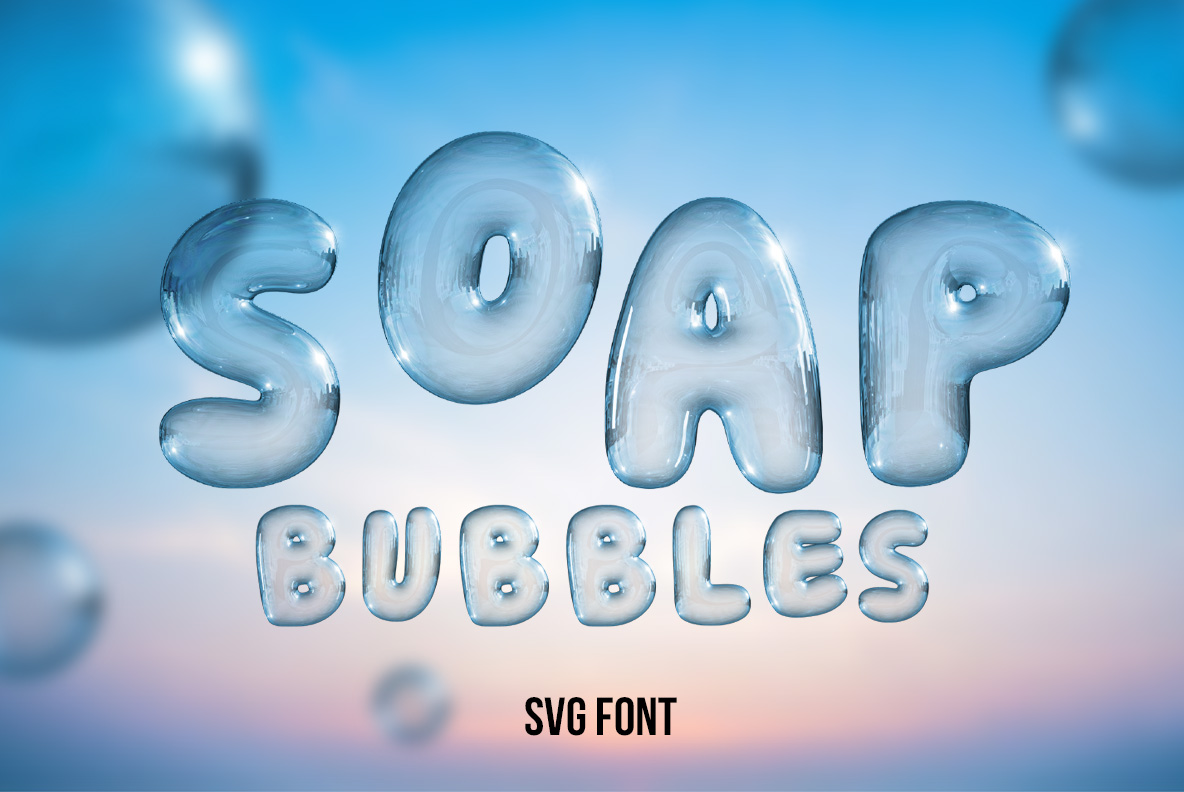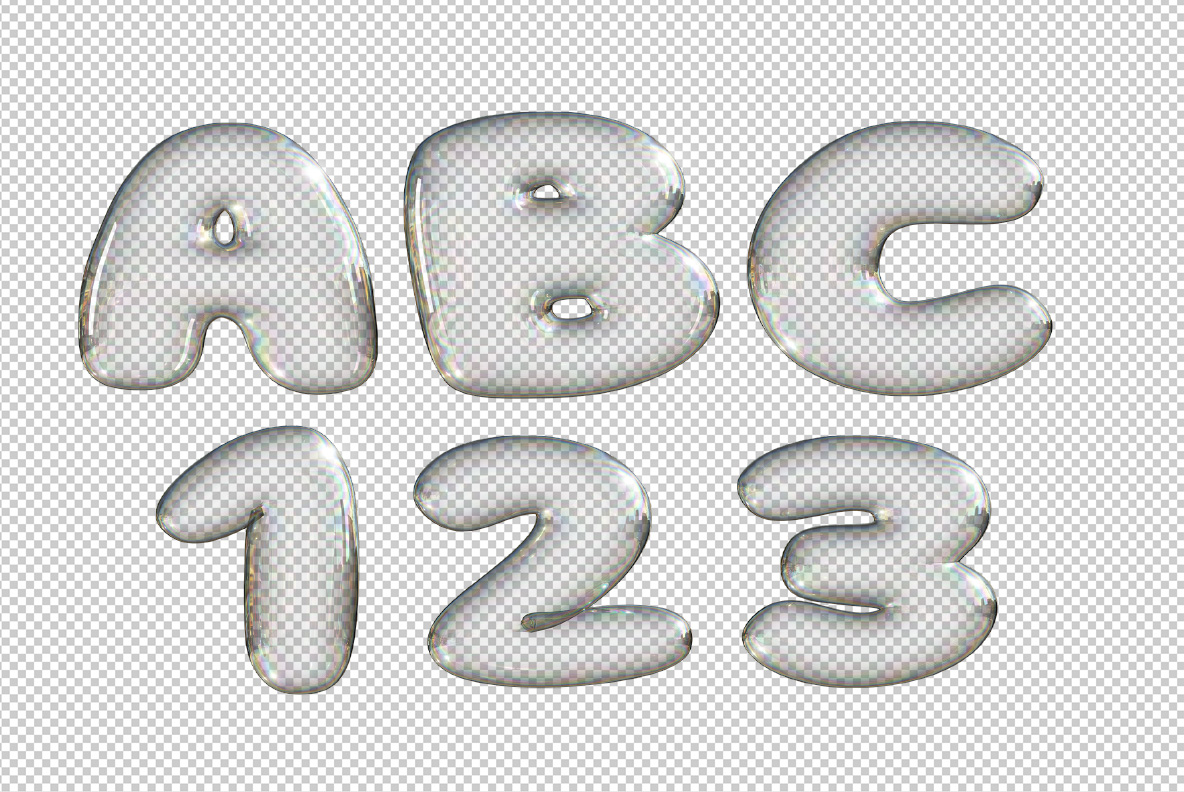
Soap Bubbles Font – Rounded See-Through Bubble Letters
A thin iridescent film stretched over each shape, with whatever sits behind showing through slightly warped. The Soap Bubbles Font builds that on deliberately chunky round strokes, so the letters survive being transparent. Caps, numerals, currency and punctuation are included. Needs a photo or a dark tone behind it: plain white leaves nothing to refract.
You Can See Straight Through the Soap Bubbles Font
These letters have no fill at all. A thin iridescent film stretches over each shape, so whatever sits behind shows through, gently warped. Pinpoint highlights land exactly where a real bubble catches a lamp. Rainbow banding drifts across the curves rather than sitting flat on them. It is the moment before a bubble pops, held still. So put a photograph behind a word and the effect does the work for you.
Fat Enough to Survive the Effect
Transparency usually kills legibility, so the underlying shapes are deliberately chunky and round. Wide strokes give the film somewhere to live without the letter disappearing. Caps cover A to Z, plus numerals, currency signs and basic punctuation. The ampersand inflates like everything else. On a busy photo it still holds, provided the word is short. Drop the size too far, though, and the highlights start to blur.
Animation typing a short phrase letter by letter in the Soap Bubbles Font
Backgrounds Make or Break the Soap Bubbles Font
Sky, water, dark paper, anything with tone: those all work. Plain white does not, since the film has nothing to refract. Wash-care and cleaning brands are the obvious buyers, while kids books, pool party invites and bath packaging fit just as well. A book cover, a printed card and a white tee all carried it here. For dense oil-slick colour rather than clear film, there is the BubbleLuxe Font. The Balloon Fonts collection covers more inflated shapes besides.
Soap Bubbles Font name set in clear bubble letters against a blue sky
The word FONT in the Soap Bubbles Font, transparent bubbles against a cloudy sky
Soap Bubbles Font name in bubble letters over a dark evening sky and treeline
A short word in the Soap Bubbles Font resting on a white textured card
White t-shirt printed with two short words in the Soap Bubbles Font
Black book cover mockup showing a long stretched bubble from the Soap Bubbles Font
Open book spread with headline and body text set in the Soap Bubbles Font
Soap Bubbles Font letters A to C and numbers 1 to 3 on a transparent background